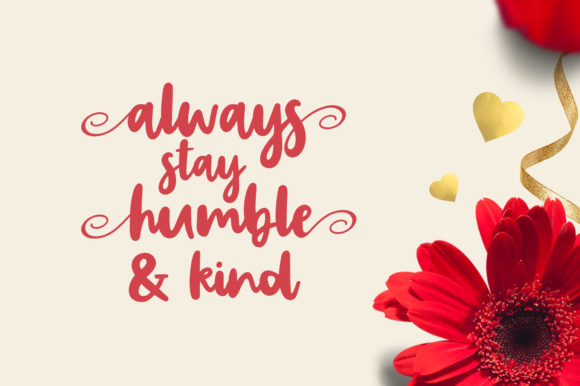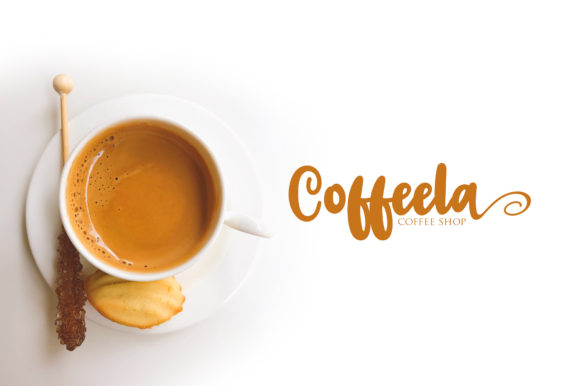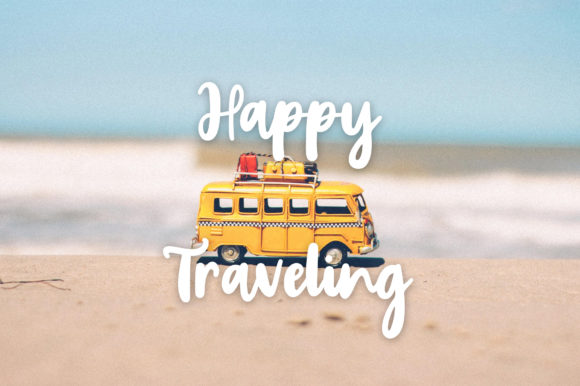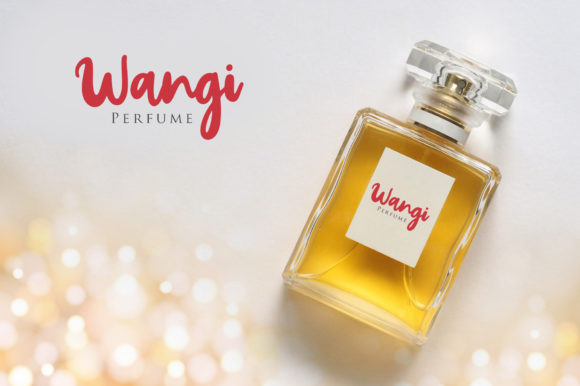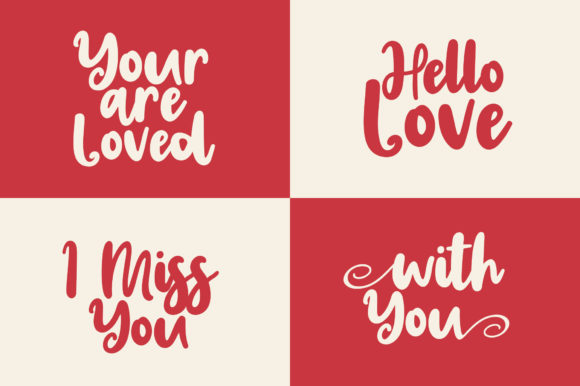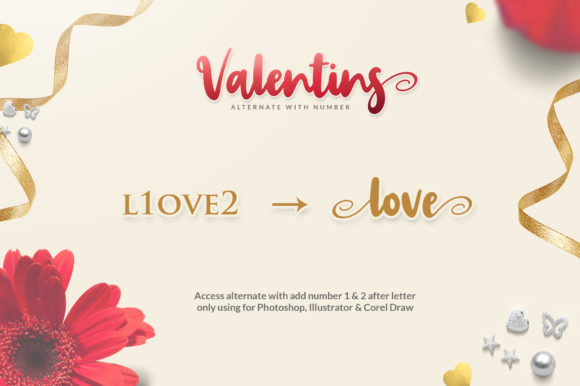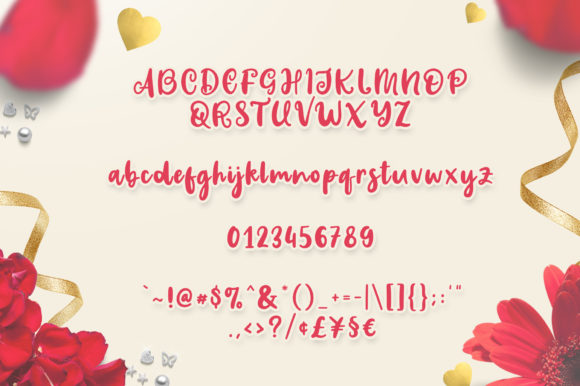
Valentins Trio Font
About Valentins Trio Font
The Valentins is a fun five font. It comes in two styles which makes it perfect for creating several unique designs!
There are two bonus fonts included, combine the three included styles to get some amazing results!